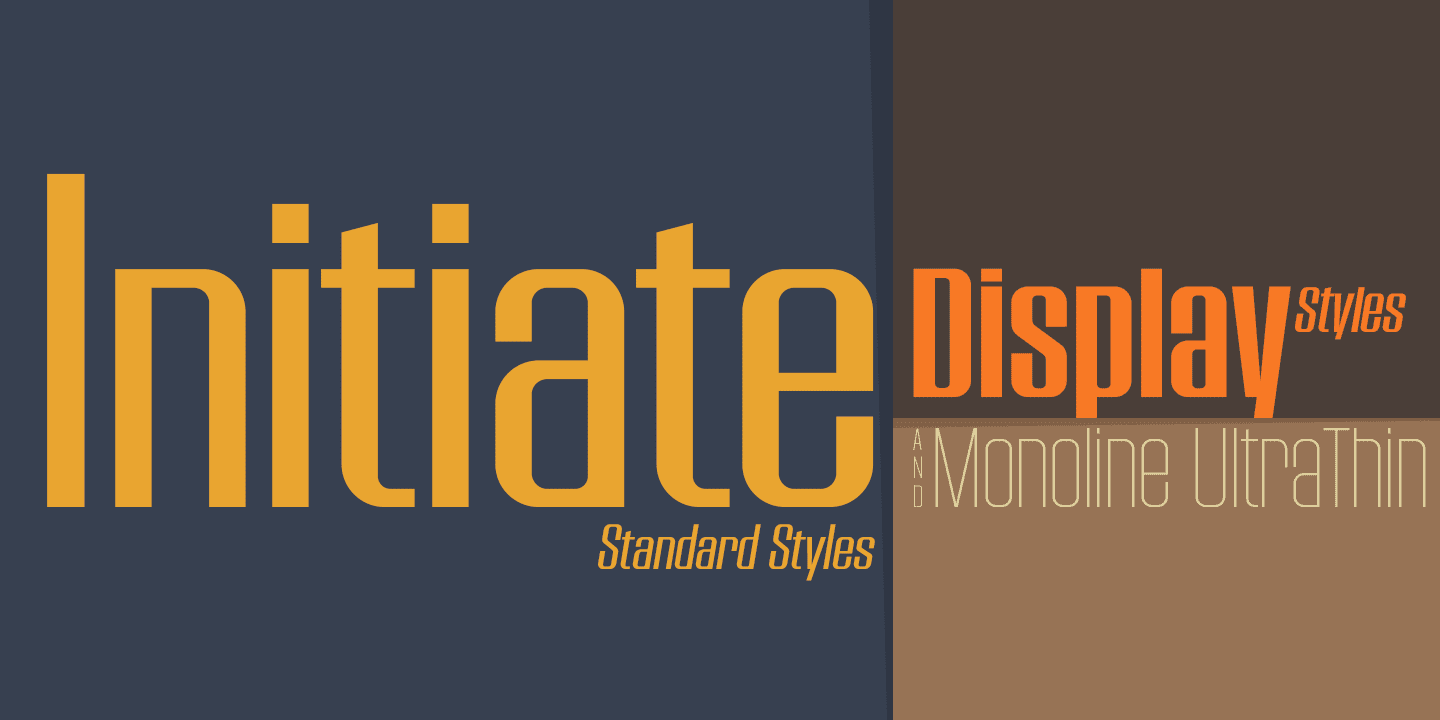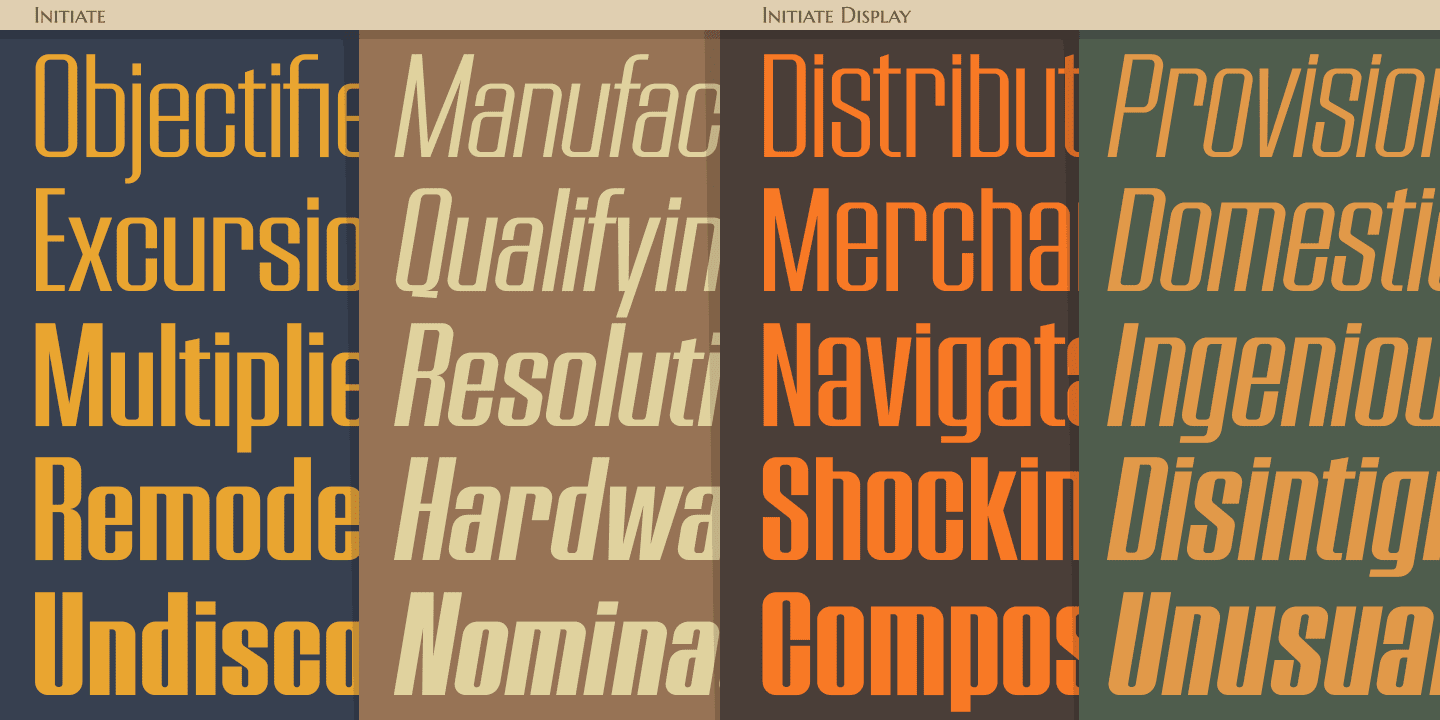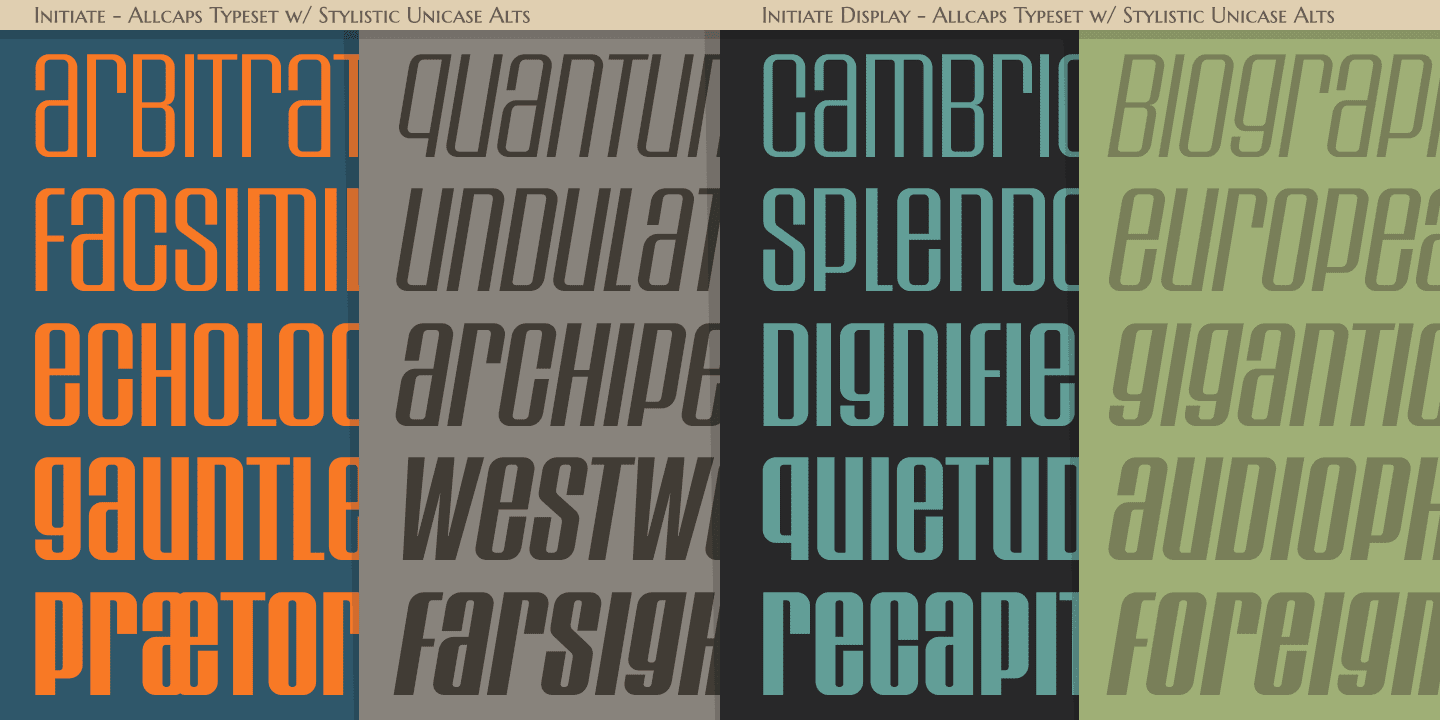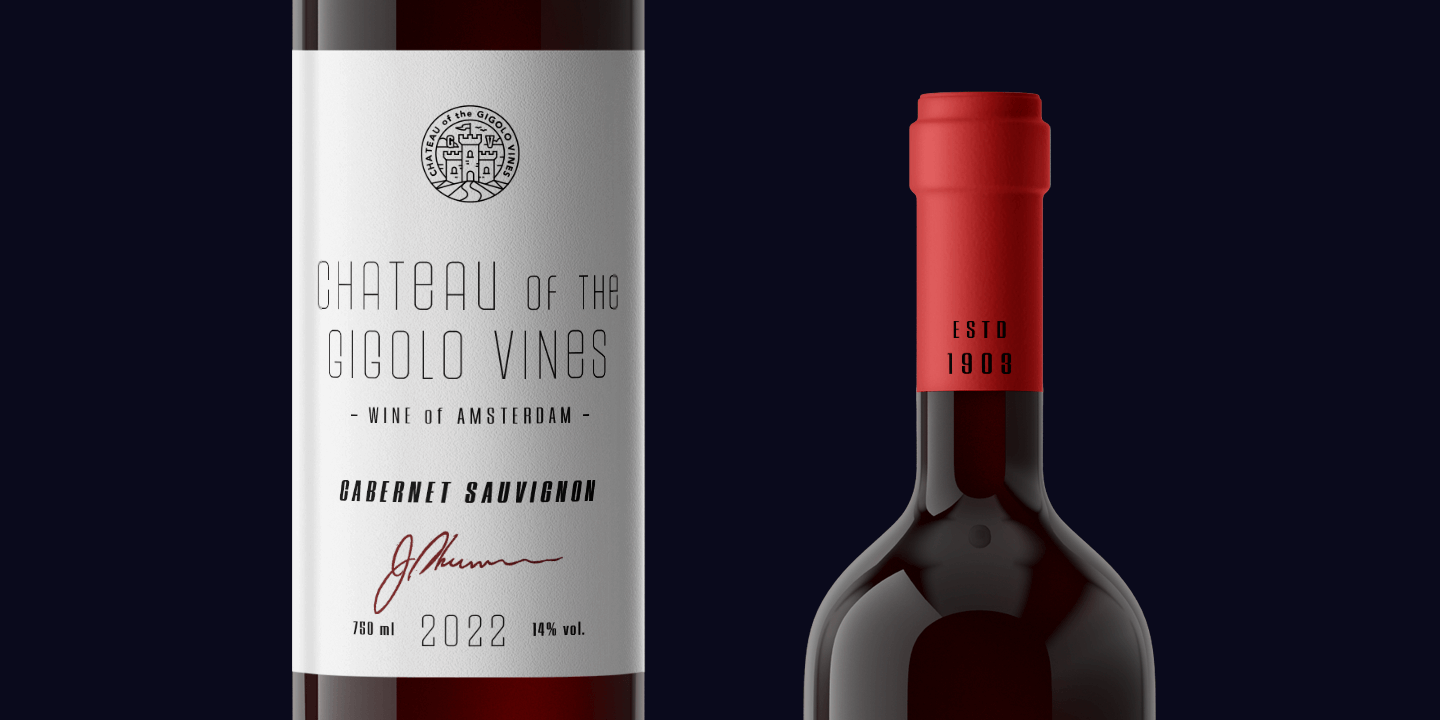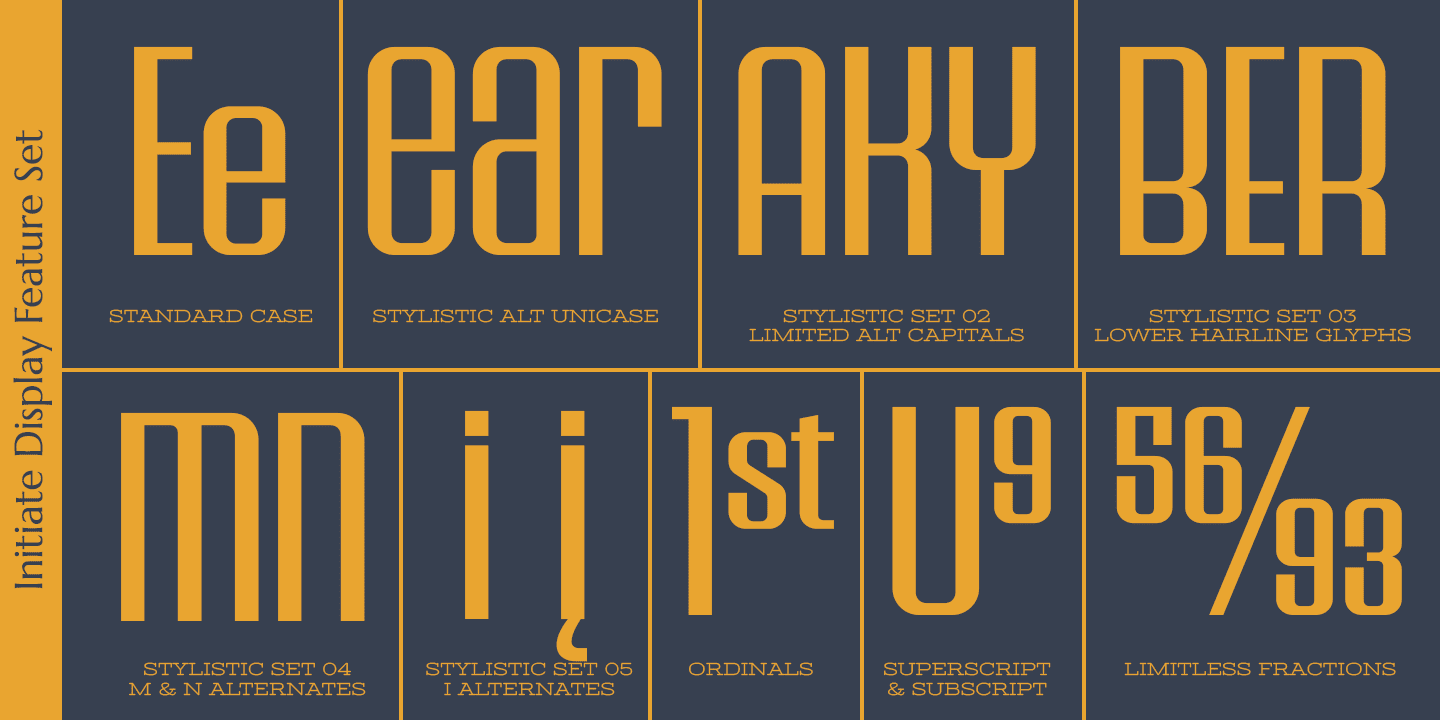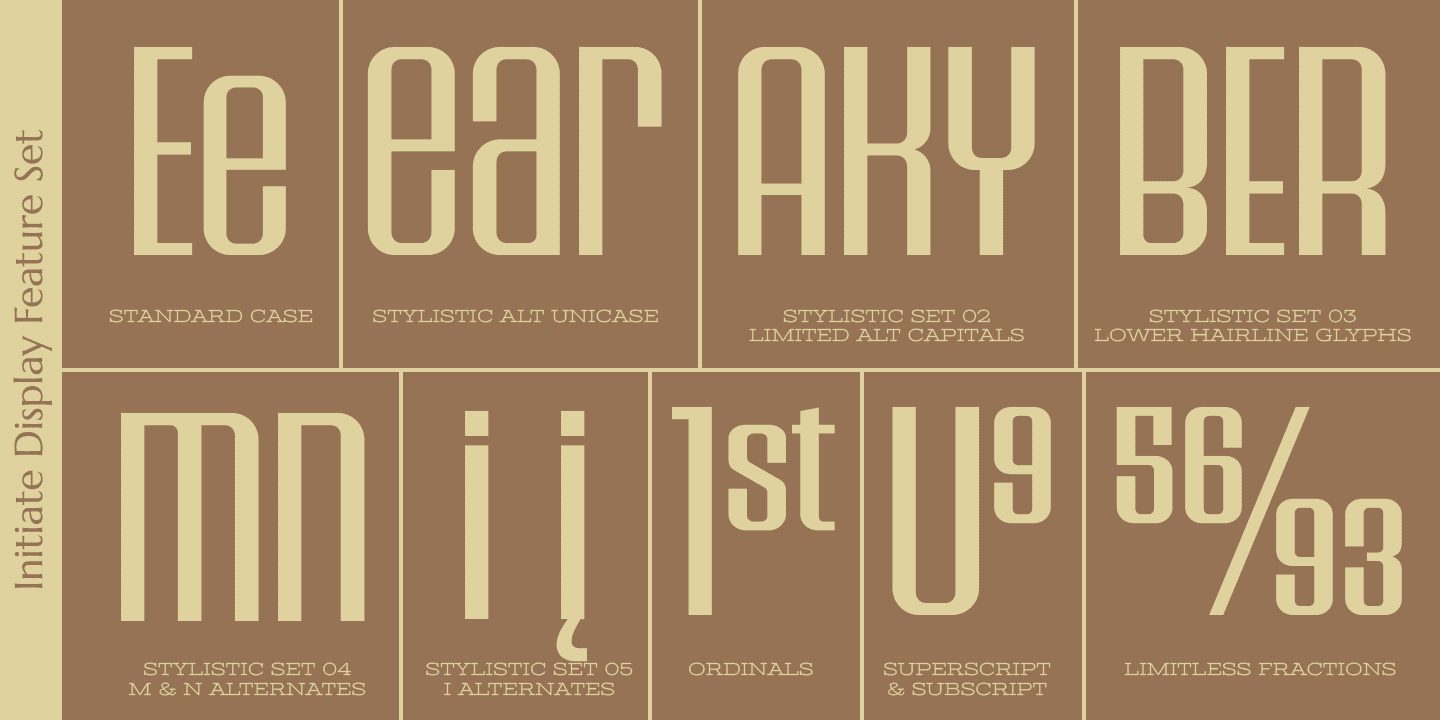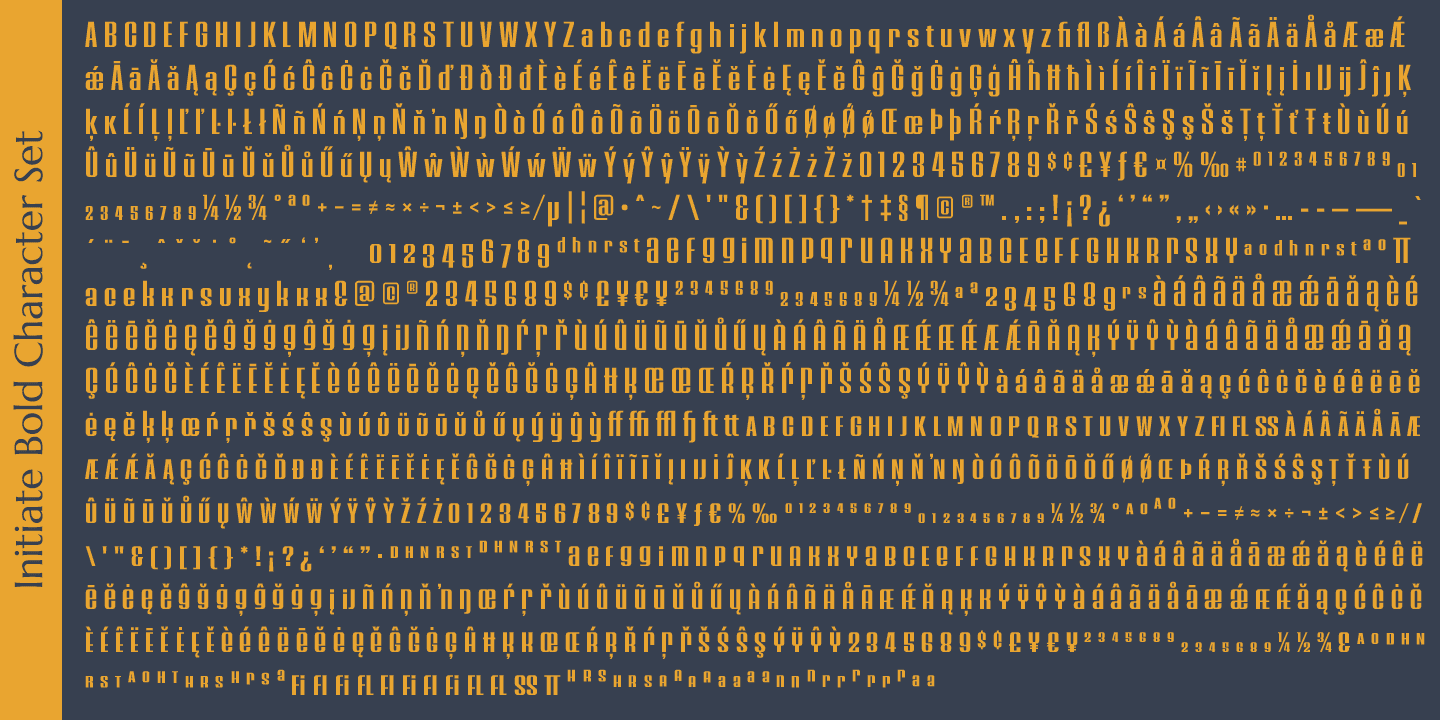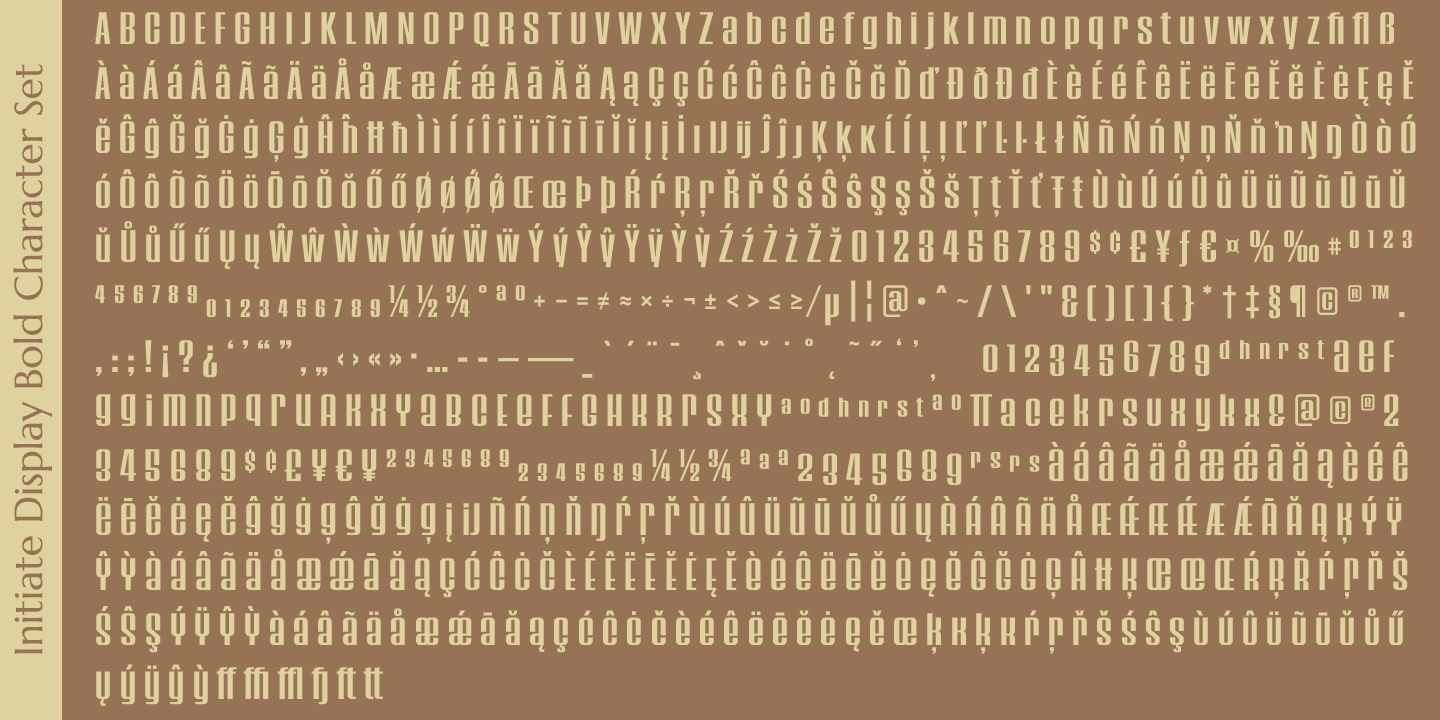
Initiate
Font Family by Stiggy & Sands
A Stylish Technology Sans Serif
Initiate began as a digitization of a film typeface from LetterGraphics in the early 70's known as "Kent". The original specimen was only in a Black weight with a tall x-height and included standard Capitals, Lowercase, Numerals and minimal Punctuation. It was a techno style sans-serif, ripe with potential.
As a single weight typeface, it yearned for so much more: from family weight development to stylistic variants. We also decided to create a more normalized x-height version as well, leaving the original design as the Display series. Extras we developed for this family are Unicase variants, High & Low hairline position glyphs, as well as other alternate styled characters.
The Initiate standard family has 1154 characters per font, while the Display family and Monoline font has 685 characters per font.
Opentype features for Initiate Family include:
• Ligatures
• Unicase Stylistic Alternate Set
• Stylistic Set 02 - Limited Alternate Characters (A,K,X,Y,k,u,x,y and variants)
• Stylistic Set 03 - Lower Hairline Characters (B,C,E,F,G,H,P,R,